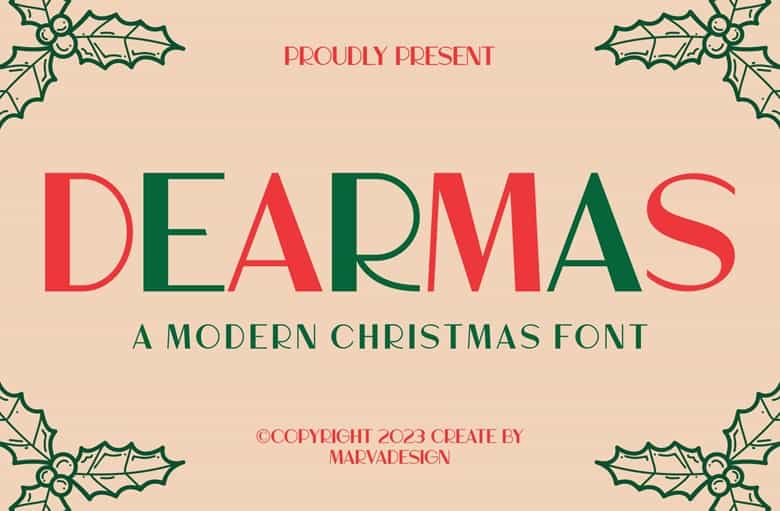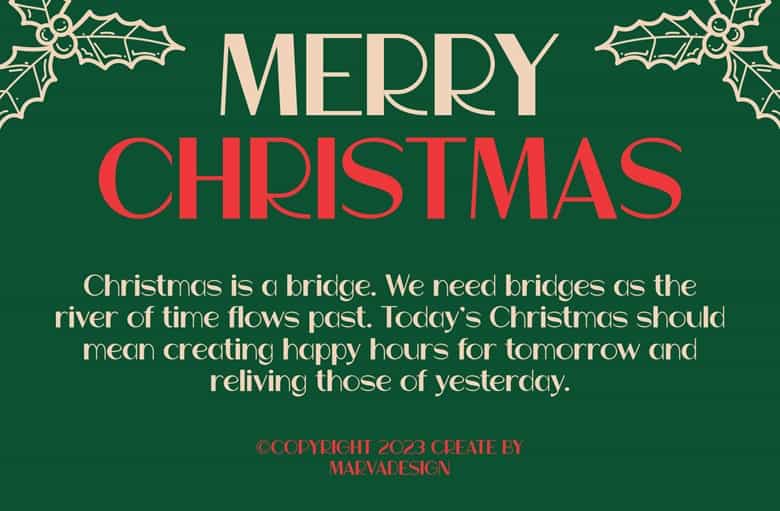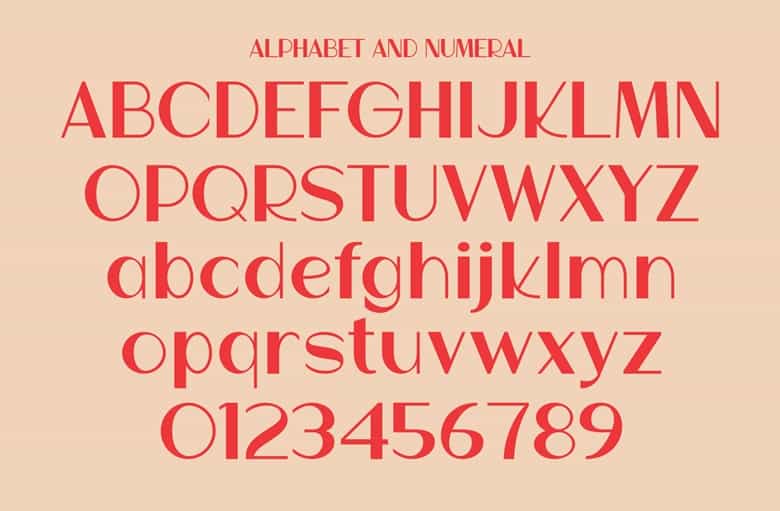
Dearmas is a new christmas authentic display sans serif font. The font suits any branding project like logo, template design, product, and many more. Outstanding in a wide range of contexts.